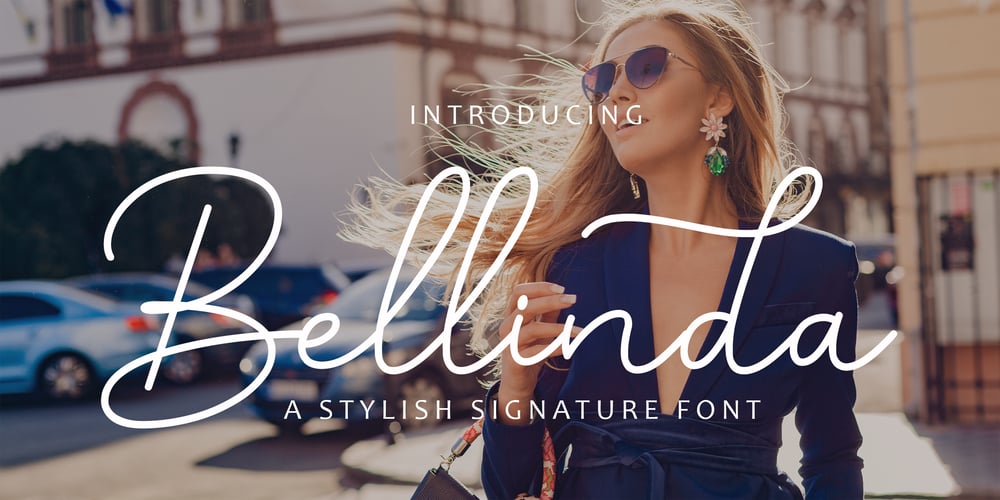
Bellinda Font Family was designed by Heri Imanudin and published by Krafted. Bellinda contains 1 styles and family package options. Introducing Bellinda – A Stylish Signature Font.Modern and tasteful, Bellinda is fantastic if you’re aiming for elegance. You can use this font for web pages, ads, promotions, banners, printed cards, clothing, merchandise, and anything else your business needs.What you’ll get: Multilingual & Ligature Support Full sets of Punctuation and Numerals Compatible with: Adobe Suite Microsoft Office KeyNote Pages Software Requirements: The fonts that you’ll receive in the pack are widely supported by most software. In order to get the full functionality of the selection of standard ligatures (custom-created letters) in the script font, any software that can read OpenType fonts will work. We hope you enjoy this font and that it makes your branding sparkle! Feel free to reach out to us if you’d like more information or if you have any concerns.